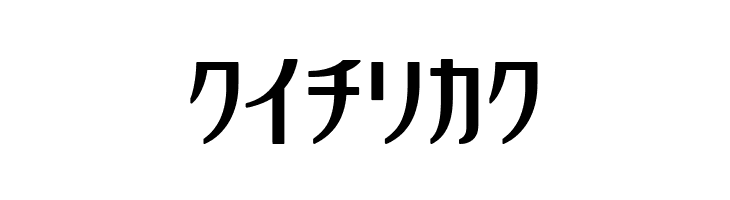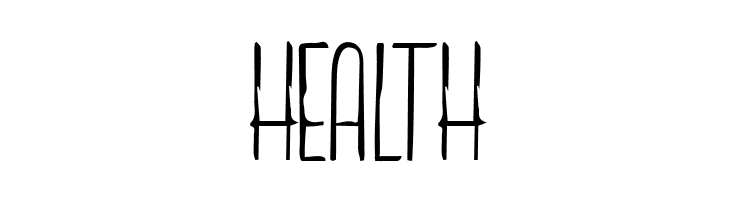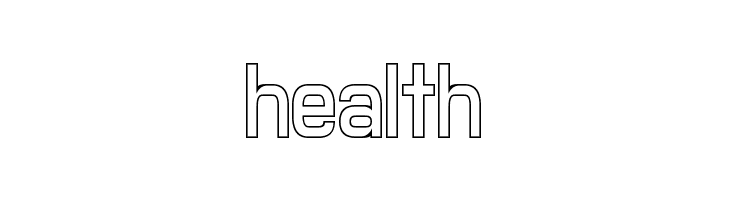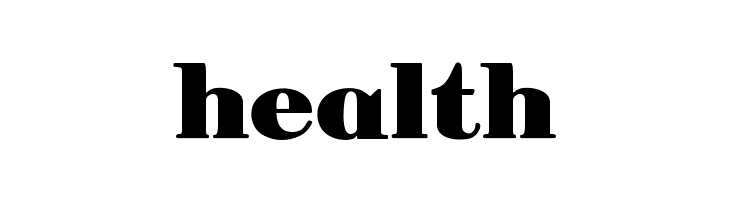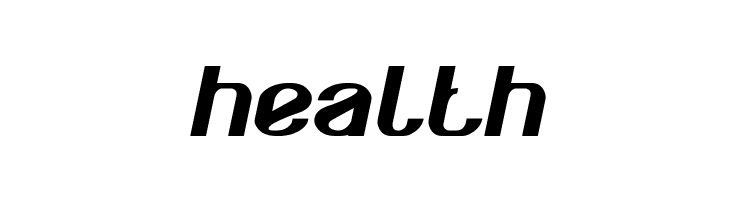
A bold, geometric font with a modern and minimalistic design.
A playful, narrow font with consistent stroke width and artistic flair.
A bold, outlined font with a modern and geometric style.
A modern, geometric outline font with a clean and structured appearance.
A bold, condensed font with sharp, angular edges and a modern, geometric style.
A bold, high-contrast serif font with a classic and authoritative style.
A bold, rounded sans-serif font with a modern and approachable style.
A bold, rounded font with a modern and clean style.